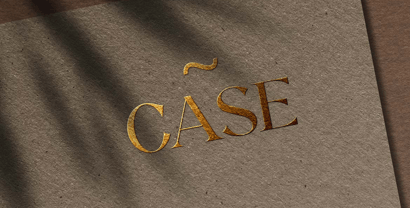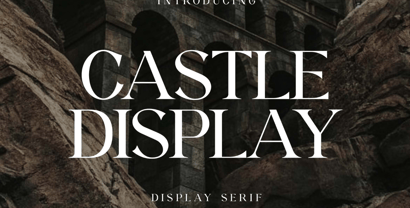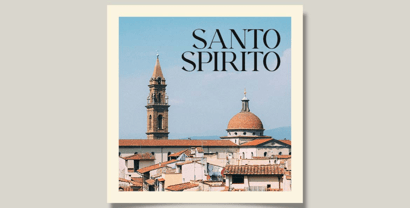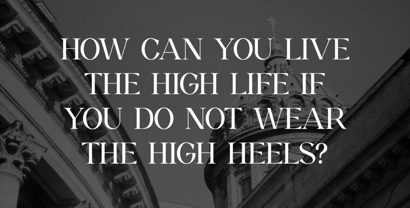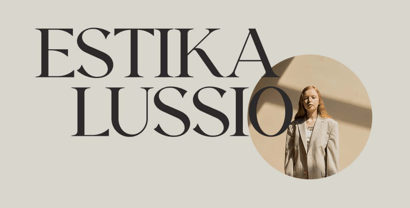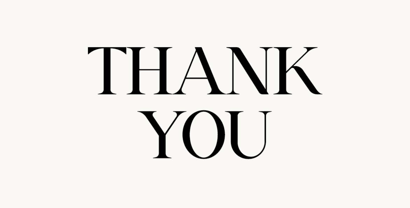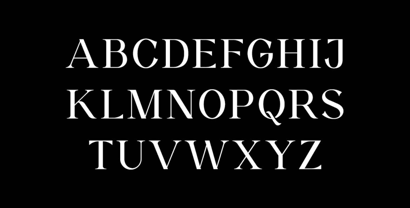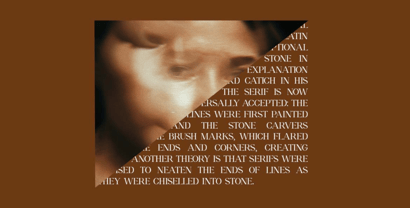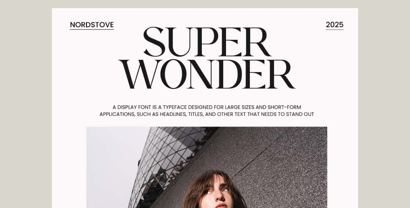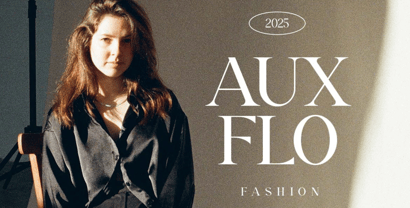
Castle Display
by UICreative
The Castle Display Font Family was designed by Hero and published by UICreative. Castle Display contains 1 styles.
Castle Display Serif Display Font. The modern display font feels beautiful classy, elegant, and stylish. This font is ideally suited for a wide variety of projects, such as signature, stationery, logo, wedding, typography quotes, magazine or book covers, website headers, branding, and more. Also, fashion-related branding or editorial design displays both masculine and feminine qualities.